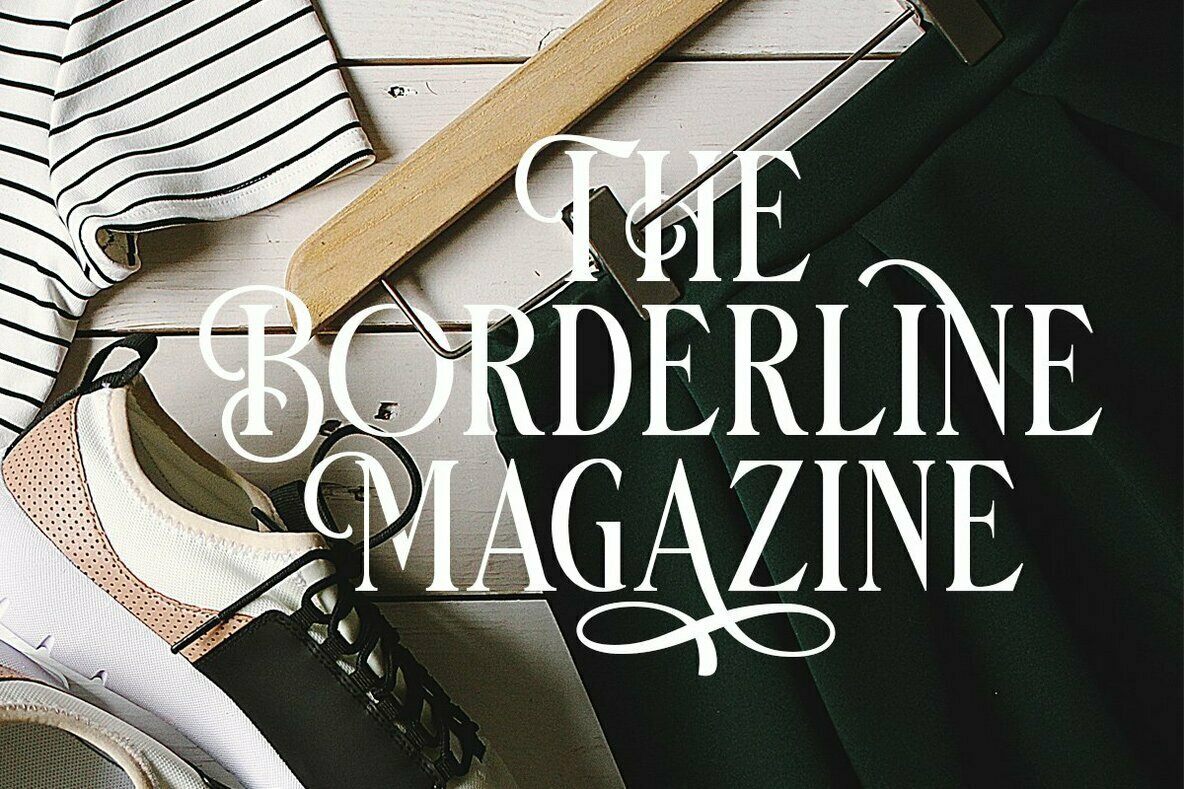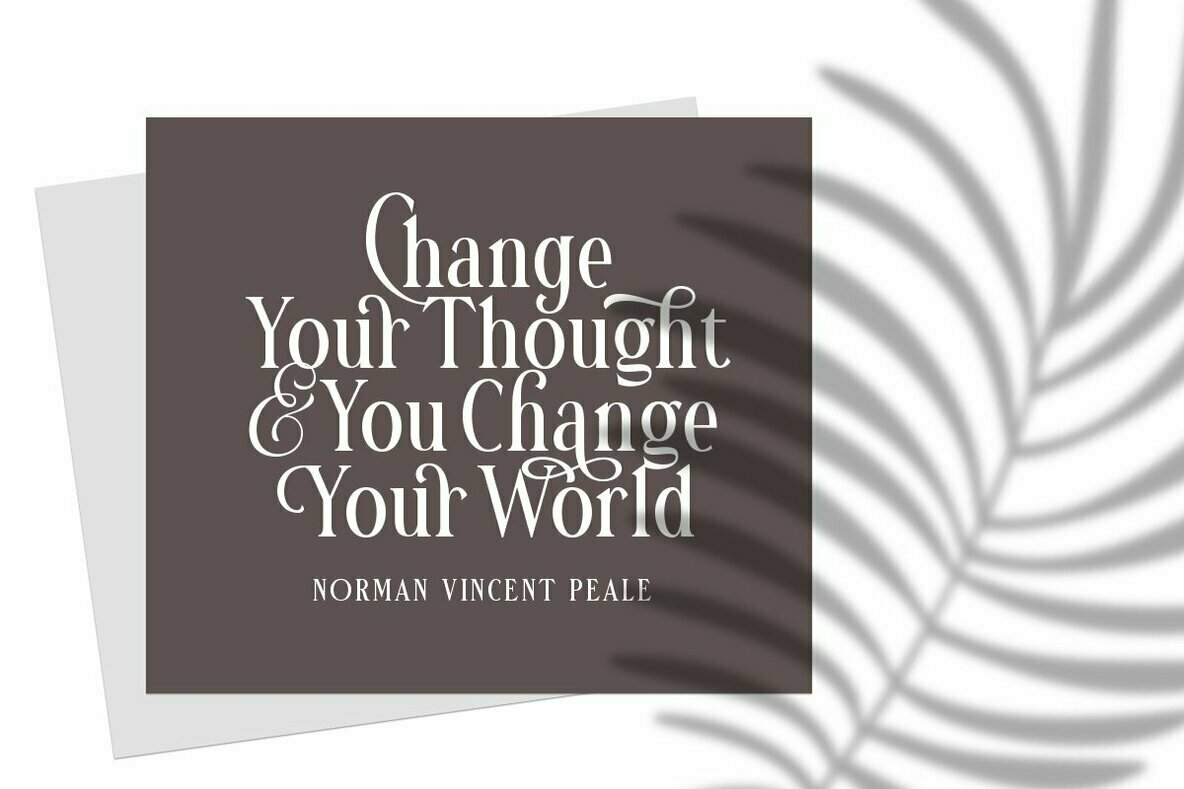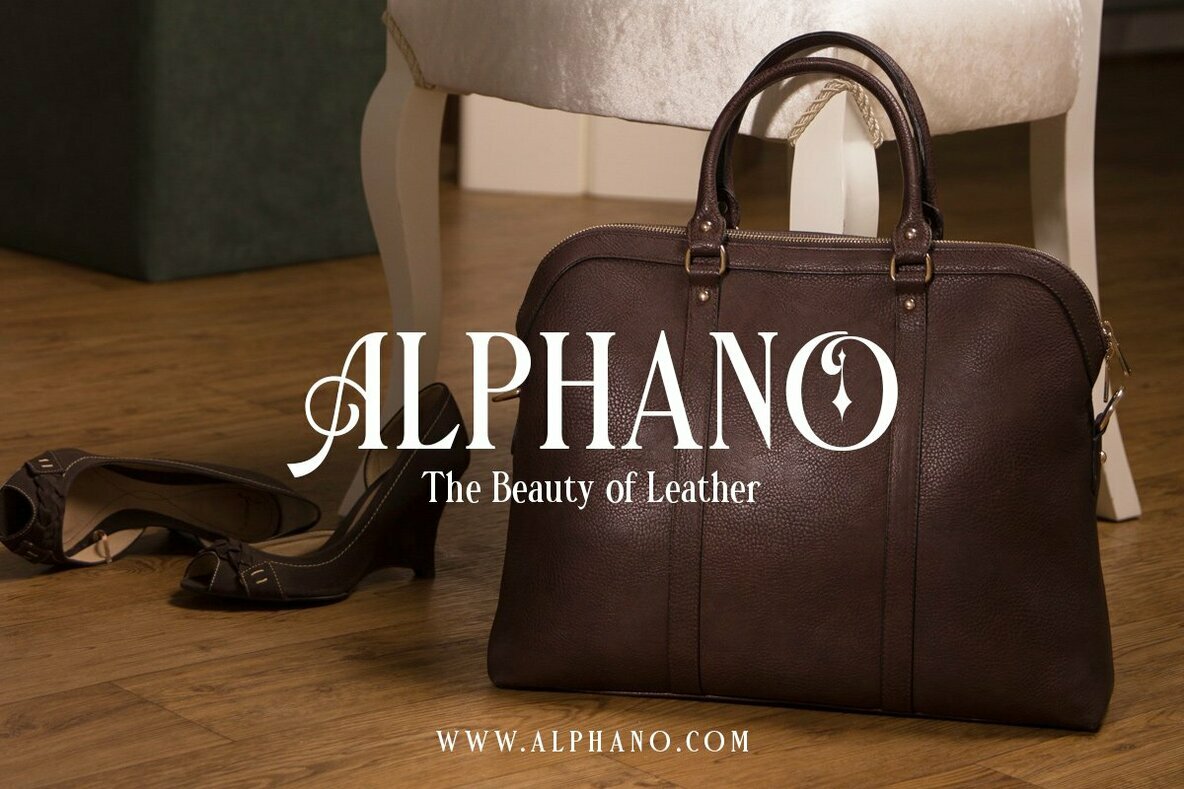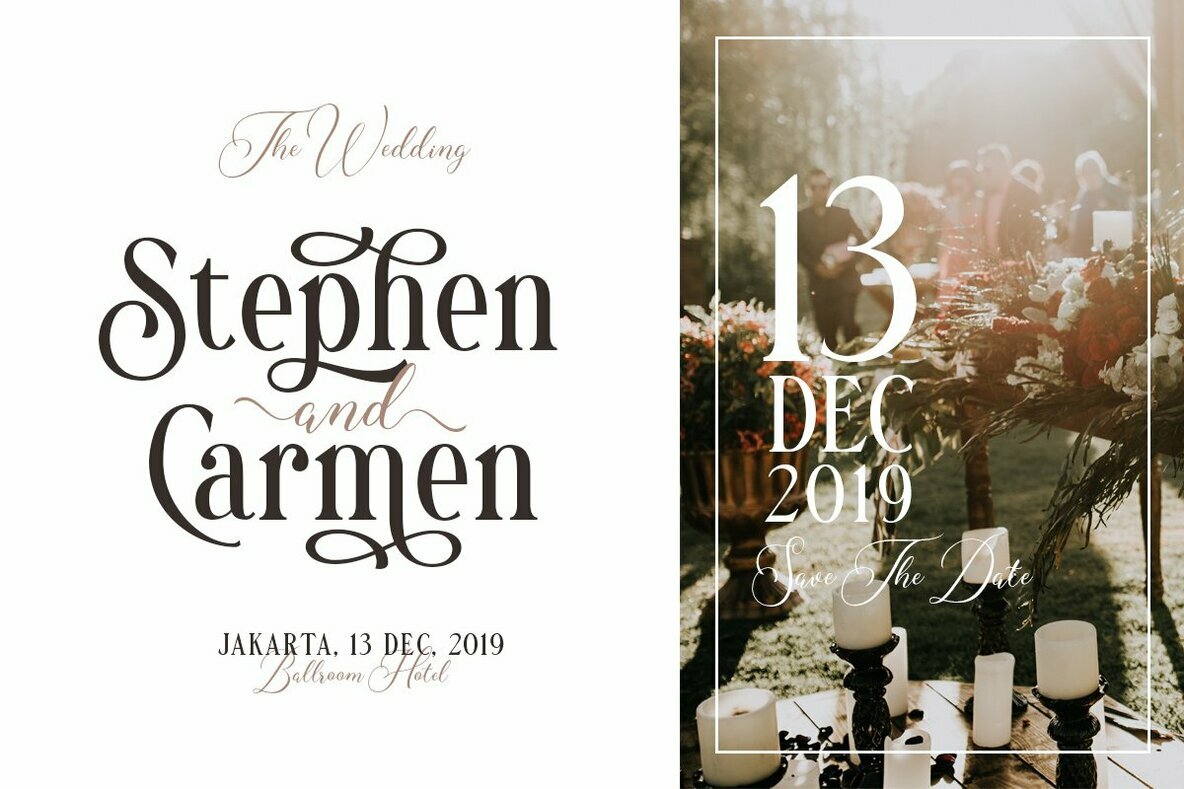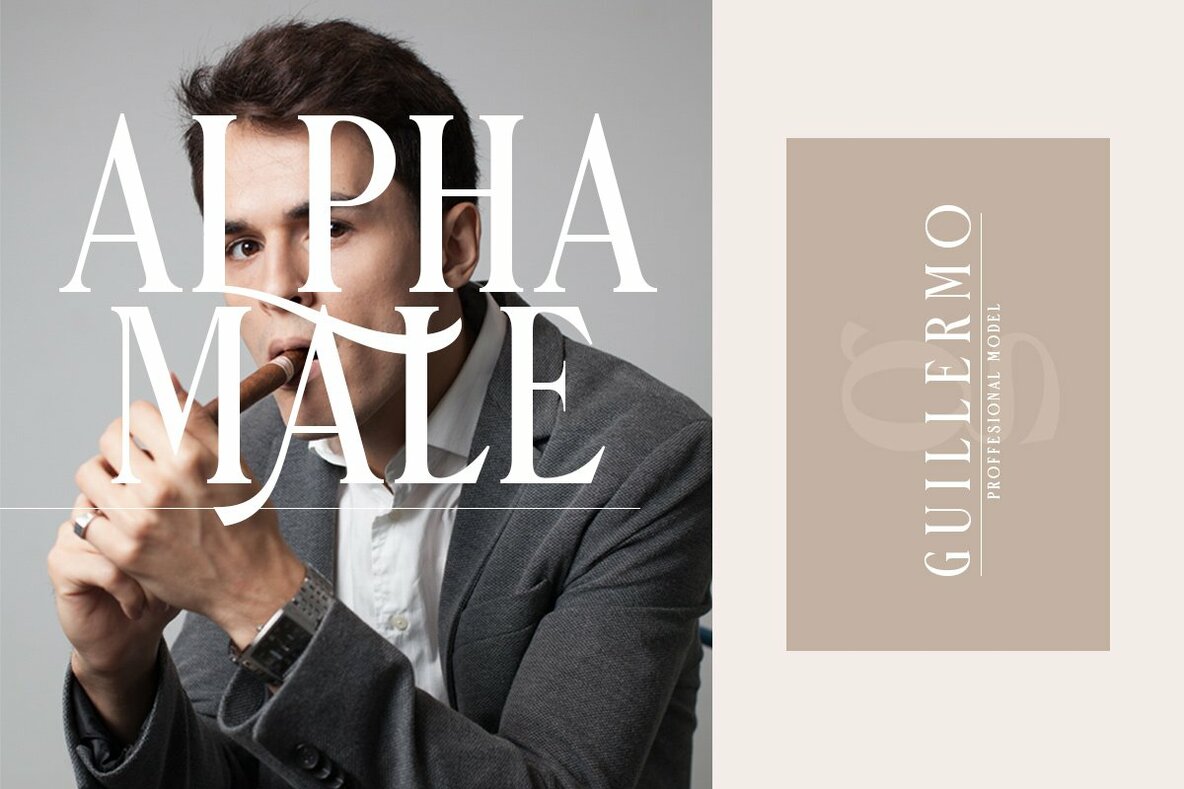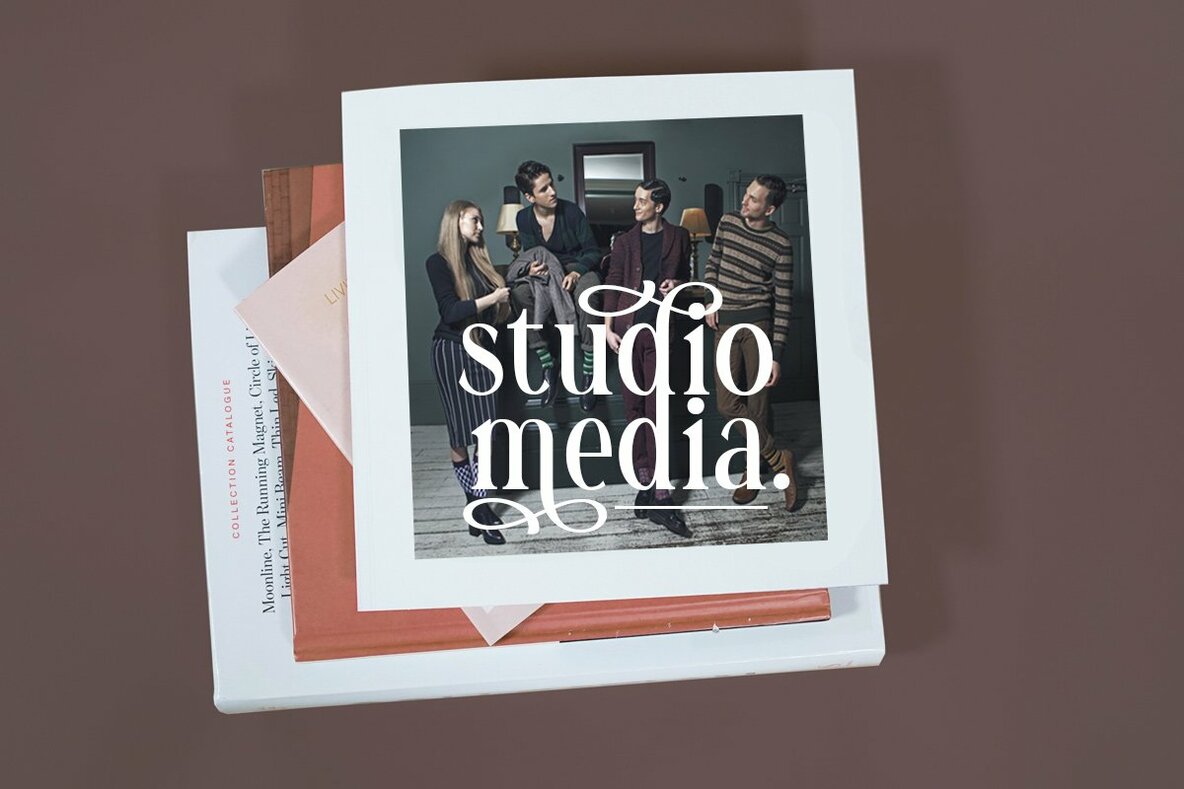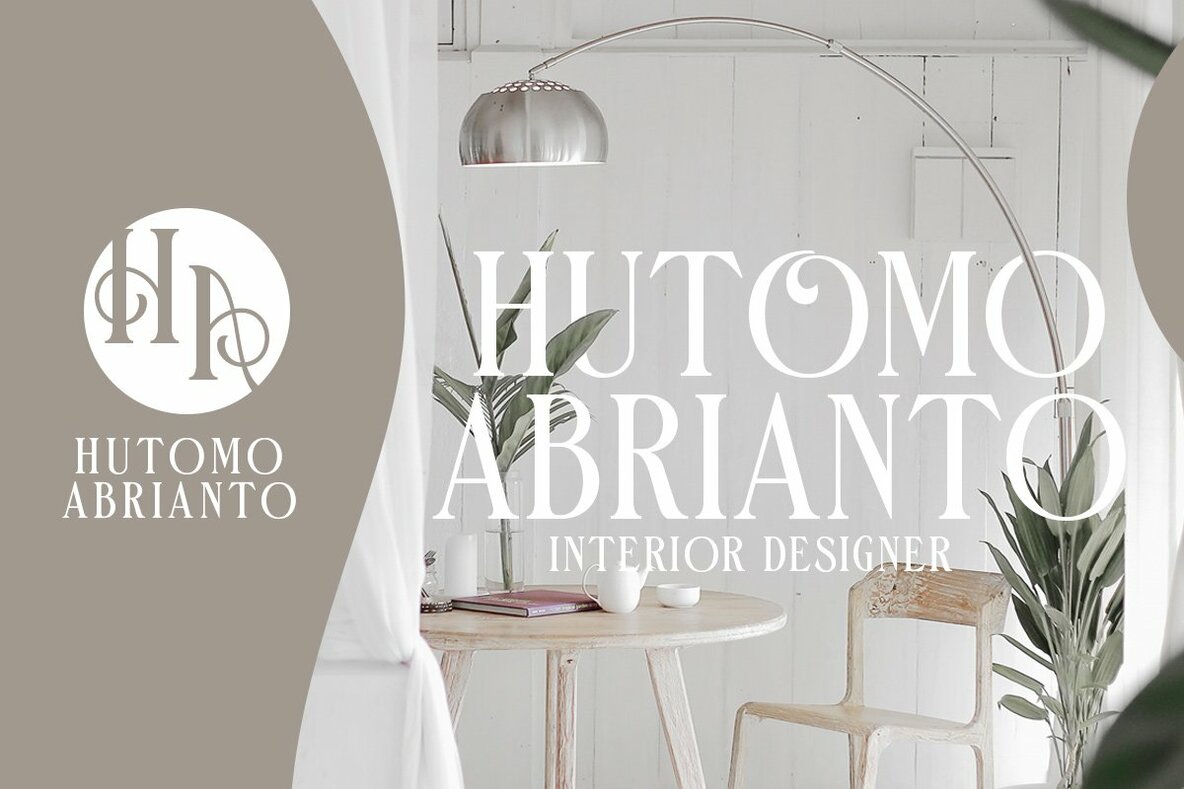
Danielle Harris Font
Danielle Harris
Danielle Harris is a sophisticated typeface that seamlessly blends modernity with classic elegance. Ideal for headlines, logotypes, apparel, invitations, branding, packaging, and advertising, this font provides a versatile solution for diverse design needs.Danielle Harris: Modern Elegance in Typography